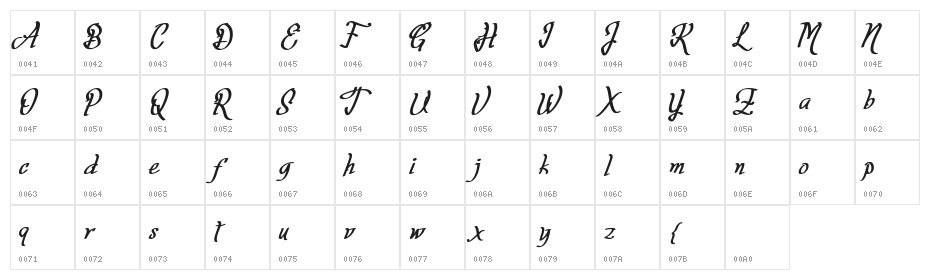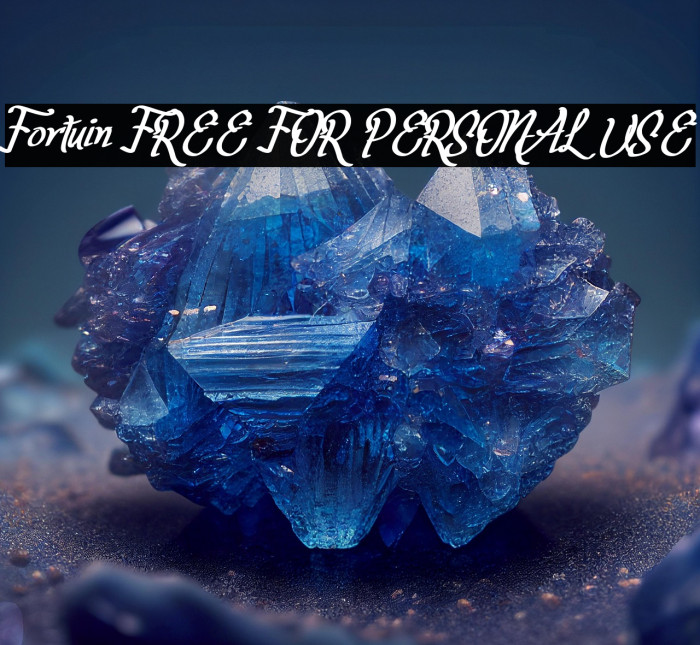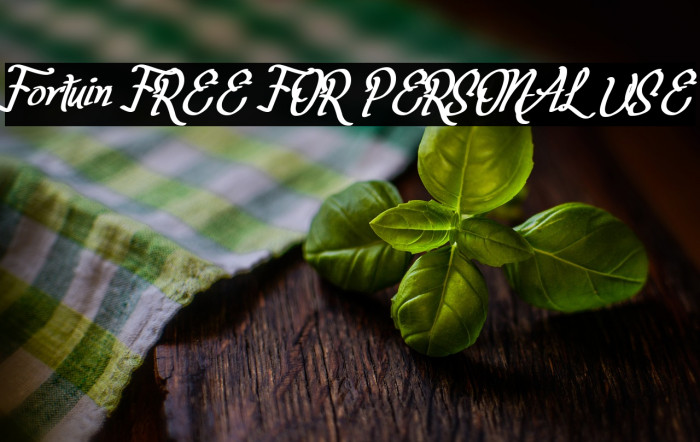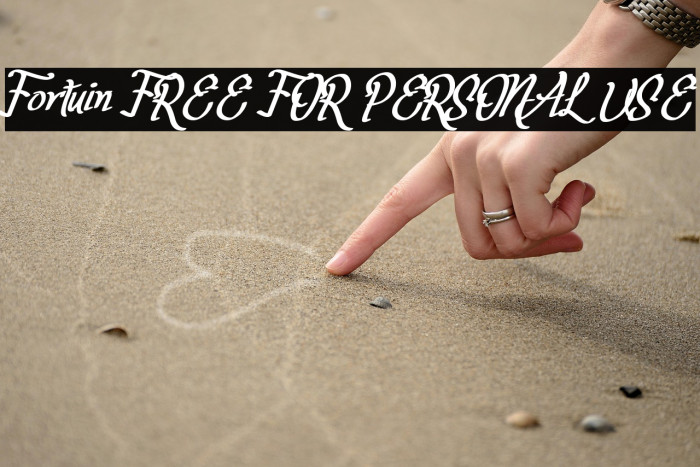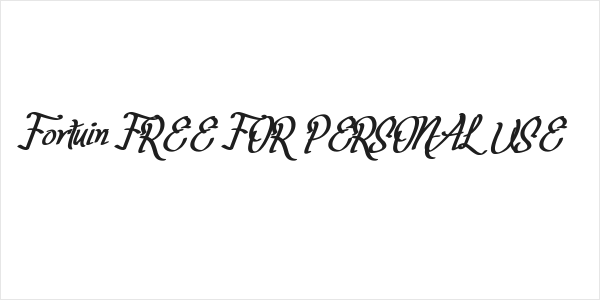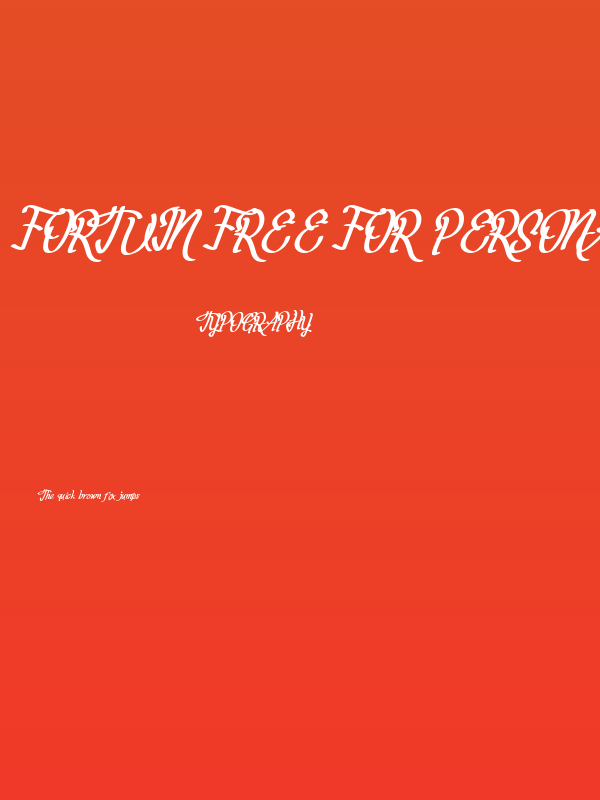
Fortuin FREE FOR PERSONAL USE Font
Fortuin FREE FOR PERSONAL USE Description
This font features an elegant and flowing script style, characterized by its ornate and decorative letterforms. The uppercase letters exhibit a dramatic flair with sweeping curves and intricate details, while the lowercase letters maintain a consistent fluidity and grace. The overall design is reminiscent of calligraphic handwriting, offering a sophisticated and artistic appearance. The font's bold strokes and high contrast between thick and thin lines enhance its visual impact, making it suitable for designs that require a touch of elegance and refinement.
| Proposed Projects | Ideal for wedding invitations, luxury branding, greeting cards, and elegant packaging designs. |